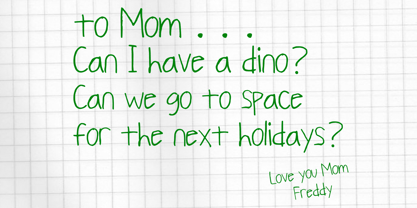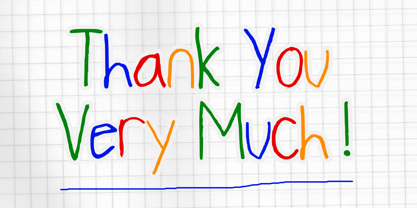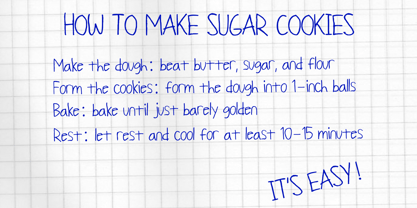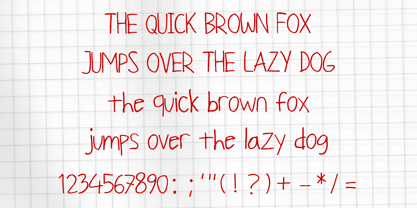
Happy Kindergarten
by Mvmet
The Happy Kindergarten Font Family was designed by Gabriel Valentinus and published by Mvmet. Happy Kindergarten contains 1 styles. More about this family
Brighten up your projects with Happy Kindergarten, an effortlessly playful handwritten font that brings a joyful, childlike appeal to any design venture. This unique font style propels creativity to new heights, making it perfect for a variety of design concepts. Integrate Happy Kindergarten into captivating logos, stylish stickers, enchanting book covers, and comic illustrations. Its ability to add a fun twist and cartoon-like charm to everyday writing makes Happy Kindergarten an ideal choice for infusing an extra dash of cool into your creative output. Perfect for branding, web design, and editorial projects, this font family offers a delightful touch that resonates with audiences of all ages.
Designers: Gabriel Valentinus
Foundry: Mvmet
Mvmet is an Indonesia-based font studio which began making fonts in early 2020. Mvmet strives to make fonts fun and accessible for both the average computer user and professional designers, with original experimental fonts and affordable trend-setting commercial fonts. Mvmet also creates custom fonts for companies who want exclusive rights and a specific design for a typeface. Clients who have used Mvmet’s custom font services include some company in Indonesia and abroad.